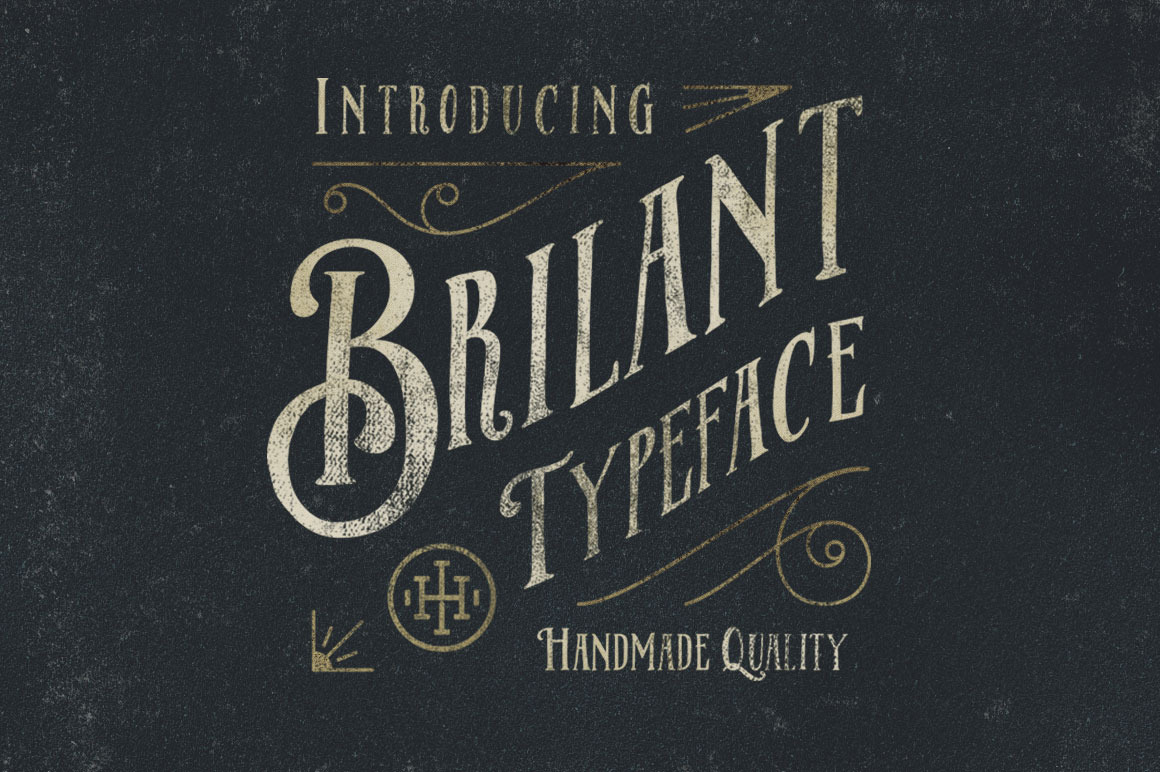
Brilant Typeface
Introducing the new Brilant Typeface, another serif font with handdraw style. It was inspired by handlettering that is popularized by various handlettering artist and including ornaments pack to decorate your work with this font...This font good for vintage design, t-shirt, logo, labels, posters and etc.